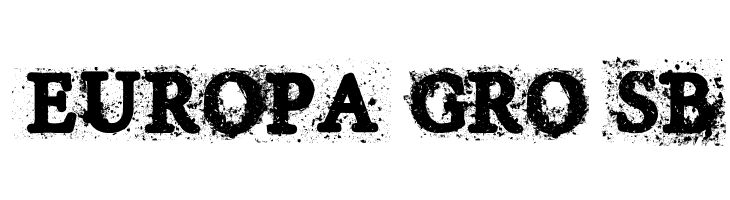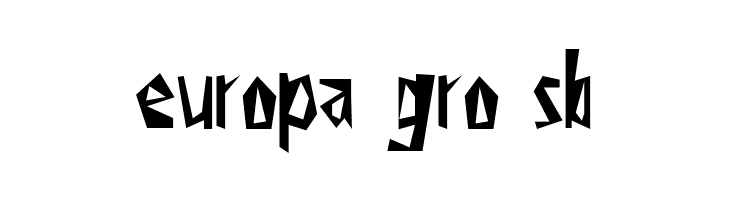
( Fonts by www.norfok.com - Norfok® Incredible Font Design - Thomas W. Otto )
A horror-themed font with a dripping, blood-like effect and sharp serifs.
( Fonts by billyargel.blogspot.com - Billy Argel )
A spooky, jagged font perfect for Halloween and horror themes.
A bold, jagged font with a horror-inspired, dripping effect.
A bold, jagged font with dripping edges, ideal for horror themes.
A bold, jagged font with a horror-themed, dripping effect.
( Fonts by www.braineaters.com )
A bold, horror-themed font with a dripping effect for a spooky aesthetic.
( Fonts by Peter Rempel - www.prfonts.com )
A creepy, dripping font perfect for horror themes.
( Fonts by Alex Tomlinson - Skyhaven Fonts - shfonts.com )
A bold, dripping font perfect for horror-themed designs.
A dripping, horror-themed font with jagged, melting characters.
A dramatic, horror-themed font with sharp edges and dripping elements.
( Fonts by Sinister Visions - Chad Savage - www.sinisterfonts.com )
A jagged, eerie font with sharp, needle-like edges and a dripping effect.
( Fonts by Manuel Viergutz - Typo Graphic Design - www.typographicdesign.de )
A jagged, eerie font perfect for horror-themed designs.
A bold, dripping font with a spooky, horror-themed aesthetic.
A bold, dripping horror-themed font with a spooky, three-dimensional effect.
A bold, horror-themed font with a dripping effect, ideal for spooky designs.
A bold, horror-themed font with jagged, dripping edges.
A bold, distressed font with a spooky, hand-drawn appearance.
A dripping, horror-themed font perfect for spooky designs.
A bold, jagged font with an eerie, horror-themed design.
A jagged, horror-themed font with sharp, irregular strokes.
A bold, dripping font with a haunting, gothic style.
A jagged, distressed font ideal for horror-themed designs.
A bold, jagged font with an icy, distressed appearance.
( Fonts by Southype )
A spooky, Halloween-themed font with dripping, cobwebbed characters.
A bold, dripping font perfect for horror themes.
( Fonts by Sinister Fonts )
A horror-themed, dripping font with bold, jagged characters.
( Fonts by Jeff Bensch )
A dripping, eerie font perfect for horror themes.
( Fonts by Chris Vile )
A bold, dripping font ideal for horror or thriller themes.
A bold, jagged font with a horror-inspired aesthetic.
A jagged, horror-themed font with sharp, irregular edges and a condensed style.
A jagged, distressed font with an eerie, horror-themed style.
A jagged, horror-themed font with sharp, irregular strokes and a distressed texture.
A jagged, horror-themed font with sharp, irregular edges.